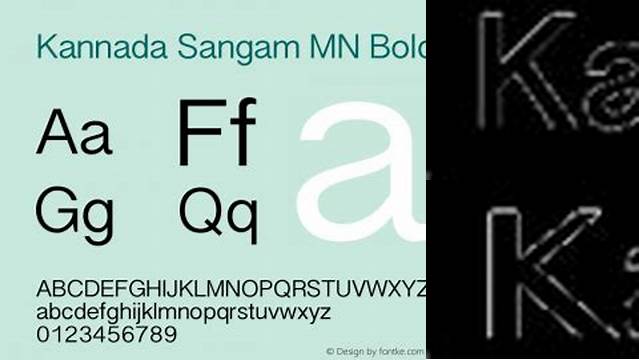
Introduction: Unleashing the Power of Kannada Sangam MN Bold Font
Hey guys! Are you looking to infuse your projects with a touch of Kannada flair? Look no further! The Kannada Sangam MN Bold font is a fantastic choice for anyone seeking a strong and legible typeface for their design needs. This font, known for its clarity and boldness, is widely used in various applications, from print media to digital platforms. In this comprehensive guide, we'll delve into the details of the Kannada Sangam MN Bold font, exploring its characteristics, uses, and, most importantly, how to download it for free. Whether you're a seasoned designer or just starting out, understanding and utilizing this font can significantly enhance your creative endeavors. We'll walk you through everything you need to know, ensuring you can confidently incorporate Kannada Sangam MN Bold into your projects. Let's get started and unlock the potential of this amazing font! By the end of this guide, you’ll not only know where to find the font but also how to use it effectively in your designs, ensuring your message is conveyed with clarity and impact. So, buckle up and let’s dive into the world of Kannada Sangam MN Bold! Remember, the right font can make all the difference in how your content is perceived, so choosing wisely is key. Let's make sure you're equipped with the best information to make that choice.
What is Kannada Sangam MN Bold Font?
So, what exactly makes the Kannada Sangam MN Bold font so special? Well, this font is a beautiful representation of the Kannada script, designed with a bold weight that makes it stand out. It's part of the larger Kannada Sangam MN family, but the bold version is particularly useful for headings, titles, and any text that needs to grab attention. The font is characterized by its clean lines and balanced letterforms, making it highly readable both on screen and in print. This legibility is crucial, especially when working with a script like Kannada, where clarity can sometimes be a challenge. Kannada Sangam MN Bold addresses this by providing a robust and clear visual representation of the characters. The bold weight adds emphasis, making it ideal for situations where you want to make a statement. Think about posters, banners, and even website headers – this font can really make your text pop! Its design is also versatile, fitting well in both traditional and contemporary contexts. Whether you're designing a traditional Kannada wedding invitation or a modern website, Kannada Sangam MN Bold can seamlessly integrate into your project. The font's strength lies in its ability to convey both authority and elegance, making it a favorite among designers working with Kannada typography. Plus, because it's designed with a focus on readability, you can trust that your message will be clearly communicated, no matter the medium. In short, Kannada Sangam MN Bold is a powerful tool for anyone looking to make an impact with their Kannada text.
Why Use Kannada Sangam MN Bold Font?
There are several compelling reasons to choose Kannada Sangam MN Bold font for your projects. First and foremost, its bold weight ensures maximum impact. If you need your text to stand out, this font is an excellent choice. Imagine using it for headlines, subheadings, or call-to-action buttons – it instantly draws the reader's eye and conveys a sense of importance. Beyond its boldness, the font's legibility is a major advantage. Kannada script can sometimes be challenging to read if the font isn't well-designed, but Kannada Sangam MN Bold addresses this perfectly. Its clean and clear letterforms make it easy to read even at smaller sizes, ensuring your message is always understood. Another key benefit is its versatility. This font isn't limited to one particular style or context. It works equally well in traditional and modern designs, making it a flexible option for a wide range of projects. Whether you're designing a poster for a cultural event or creating a sleek website, Kannada Sangam MN Bold can adapt to your needs. Furthermore, using a high-quality font like Kannada Sangam MN Bold can significantly enhance the overall aesthetic of your work. It adds a professional touch and shows attention to detail, which can make a big difference in how your designs are perceived. Think about it – a well-chosen font can elevate your work from good to great. Finally, the availability of Kannada Sangam MN Bold as a free download makes it an accessible option for everyone. You don't have to break the bank to use a top-notch font, which is a huge plus for students, freelancers, and anyone working on a budget. In conclusion, the impact, legibility, versatility, and accessibility of Kannada Sangam MN Bold make it a standout choice for anyone working with Kannada typography.
Tips for Using Kannada Sangam MN Bold Font Effectively
Now that you've got the Kannada Sangam MN Bold font installed, let's talk about how to use it effectively. Just having a great font isn't enough; you need to know how to use it to its full potential. One of the most important tips is to use Kannada Sangam MN Bold strategically. Its bold weight makes it perfect for headlines and subheadings, but it might be too overpowering for body text. Think of it as a tool for emphasis – use it to draw attention to key elements and create visual hierarchy in your design. For body text, consider using a lighter weight from the Kannada Sangam MN family or another complementary font that's easy to read in longer passages. Another key consideration is font size. Because Kannada Sangam MN Bold is quite bold, you might need to use a slightly smaller font size than you would with a regular-weight font. Experiment with different sizes to find the sweet spot where the text is legible but not overwhelming. When it comes to spacing, pay attention to both the letter spacing (tracking) and the line spacing (leading). Kannada script can sometimes appear dense, so giving the letters and lines a bit of extra breathing room can improve readability. Use your design software's spacing controls to fine-tune the appearance of your text. Color is another important factor. Kannada Sangam MN Bold works well in a variety of colors, but it's generally best to choose colors that provide good contrast with the background. Dark text on a light background is usually the most readable option, but you can also experiment with other combinations to create different moods and effects. Finally, don't be afraid to experiment! Try using Kannada Sangam MN Bold in different contexts and combinations to see what works best for your project. The more you use it, the better you'll get at understanding its strengths and limitations. With a little practice, you'll be able to wield the power of Kannada Sangam MN Bold like a pro, creating stunning designs that showcase the beauty of the Kannada script.
Conclusion: Embrace the Boldness of Kannada Sangam MN
So, there you have it! A complete guide to the Kannada Sangam MN Bold font. We've explored what makes this font special, why you should use it, where to find it for free, how to download and install it, and tips for using it effectively. Hopefully, you're now feeling confident and excited to incorporate this fantastic font into your projects. Remember, the Kannada Sangam MN Bold font is a powerful tool for adding emphasis and visual interest to your designs. Its bold weight and clear letterforms make it an excellent choice for headlines, subheadings, and any text that needs to stand out. But don't forget about the importance of legibility. While Kannada Sangam MN Bold is designed to be readable, it's still crucial to use it strategically and consider factors like font size, spacing, and color. By following the tips we've discussed, you can ensure that your text is not only visually appealing but also easy to read and understand. And most importantly, have fun with it! Experiment with different combinations and contexts to discover the full potential of Kannada Sangam MN Bold. Whether you're designing a website, a poster, or a business card, this font can help you create a unique and impactful look. So go ahead, download Kannada Sangam MN Bold for free, and start exploring the possibilities. Embrace the boldness and let your creativity shine! With the right font, your designs can truly come to life, and Kannada Sangam MN Bold is definitely a font that can help you achieve that. Happy designing, guys!